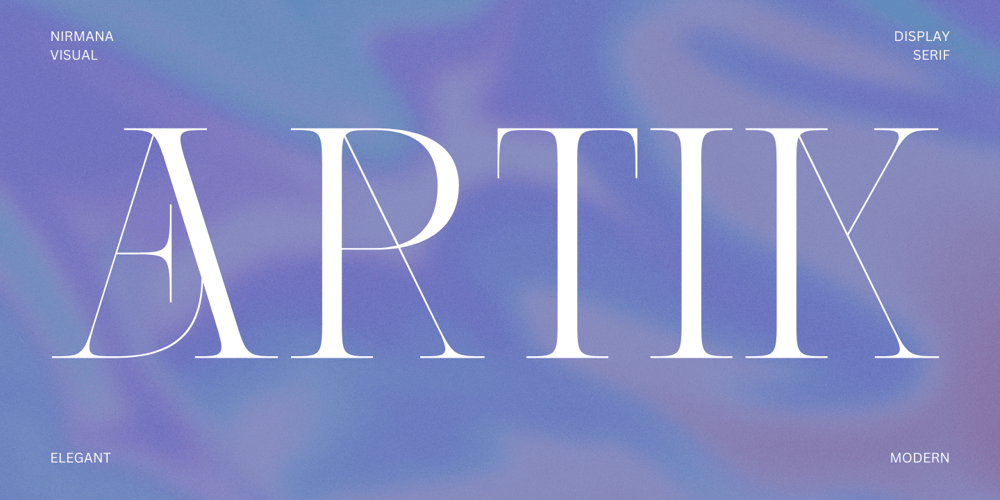
Artik Font Family was designed by Sigit Dwipa and published by Nirmana Visual. Artik contains 1 styles and family package options. Introducing Artik our stunning modern serif font, perfect for adding elegance and sophistication to any design project. With its clean lines and contemporary flair, this font is ideal for creating eye-catching headlines, logos, and branding materials.Crafted with care and attention to detail, our modern serif font features subtle curves and sharp edges that create a perfect balance between classic and modern design elements. The elegant serifs add an extra touch of sophistication and ensure readability in any size, making it a versatile font choice for both print and digital media.